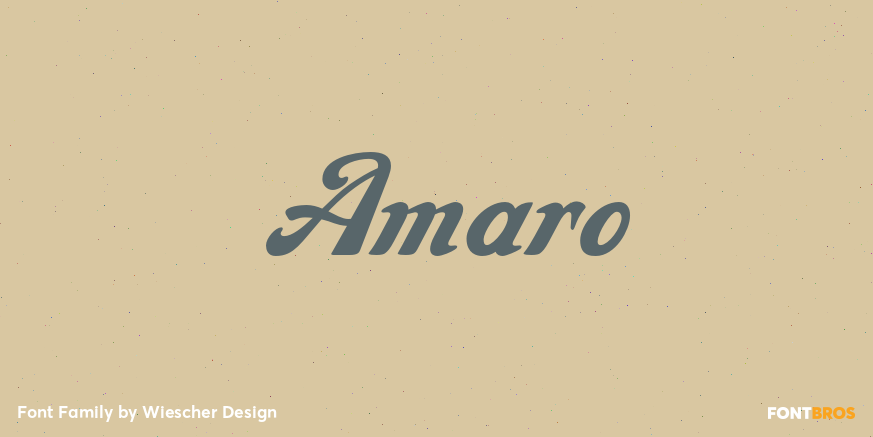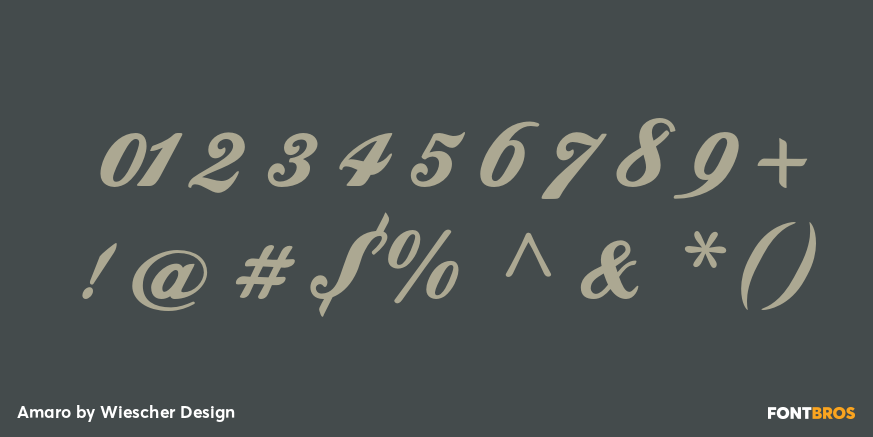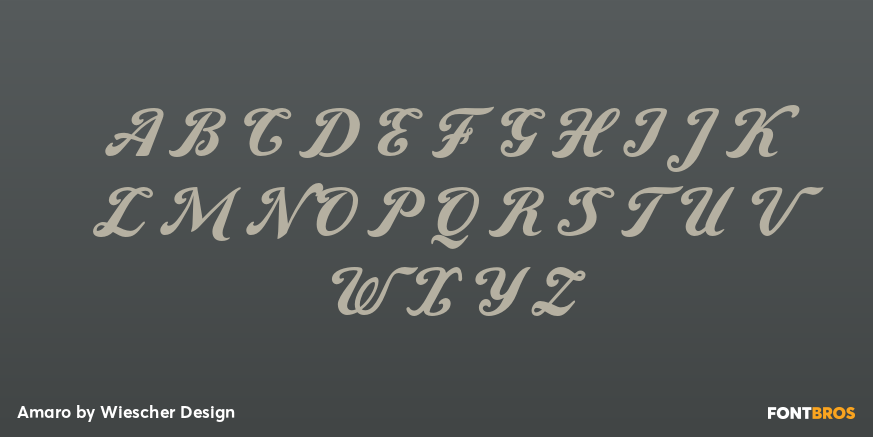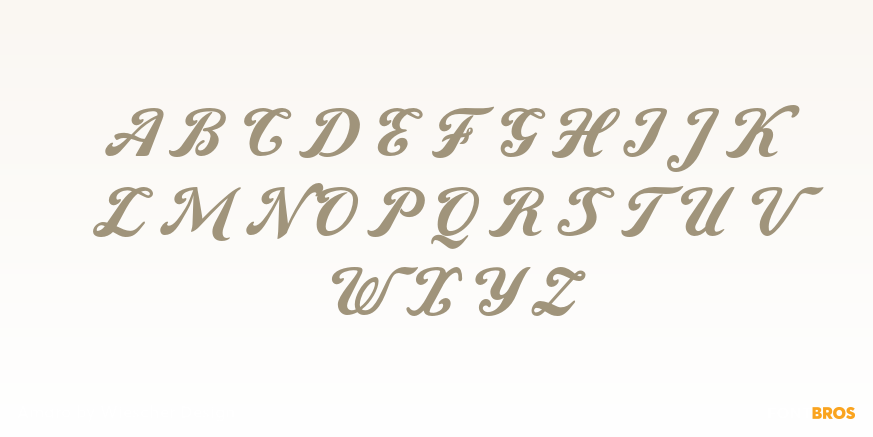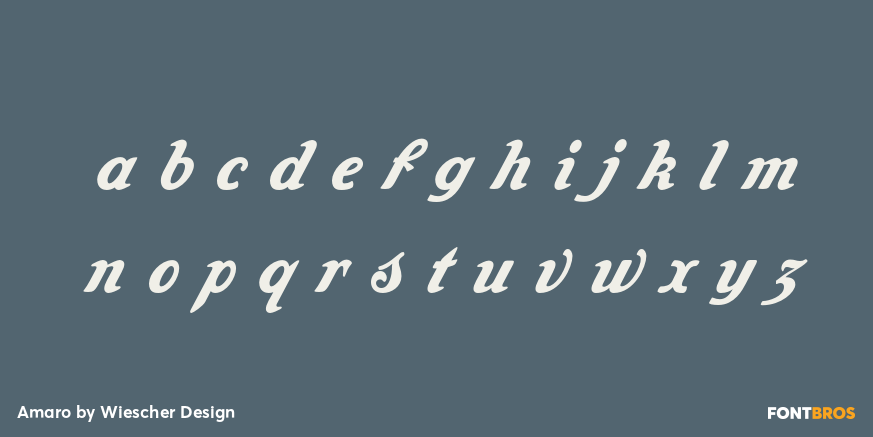
Amaro
Font Family by Wiescher Design
Amaro is an Art Deco script family from Wiescher Design with a distinctly vintage feel shaped by 1920s and 1930s influences. Its letterforms strike a stylish balance between casual and formal script, giving it a polished, period-inspired voice that feels decorative without losing readability.
With 4 font styles included—Amaro A, B, C, and D—this family offers a flexible set of looks for display-driven work. It’s a strong choice for branding, packaging, posters, invitations, and other designs that call for elegant movement and classic character.
If you’re looking for script lettering with an unmistakable Art Deco mood, this family brings a refined retro presence that suits both nostalgic concepts and contemporary layouts with a vintage edge.